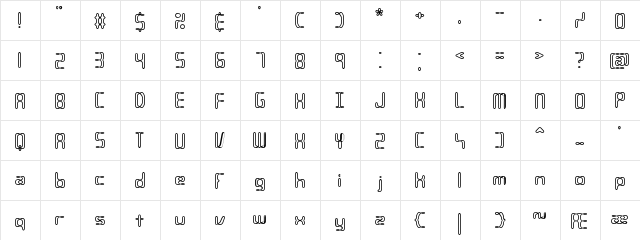
Compliant Confuse 2o BRK Normal
Design Context for Compliant Confuse 2o BRK Typeface
Compliant Confuse 2o BRK is a composed and adaptable typeface that performs quietly and consistently across a wide range of design contexts.